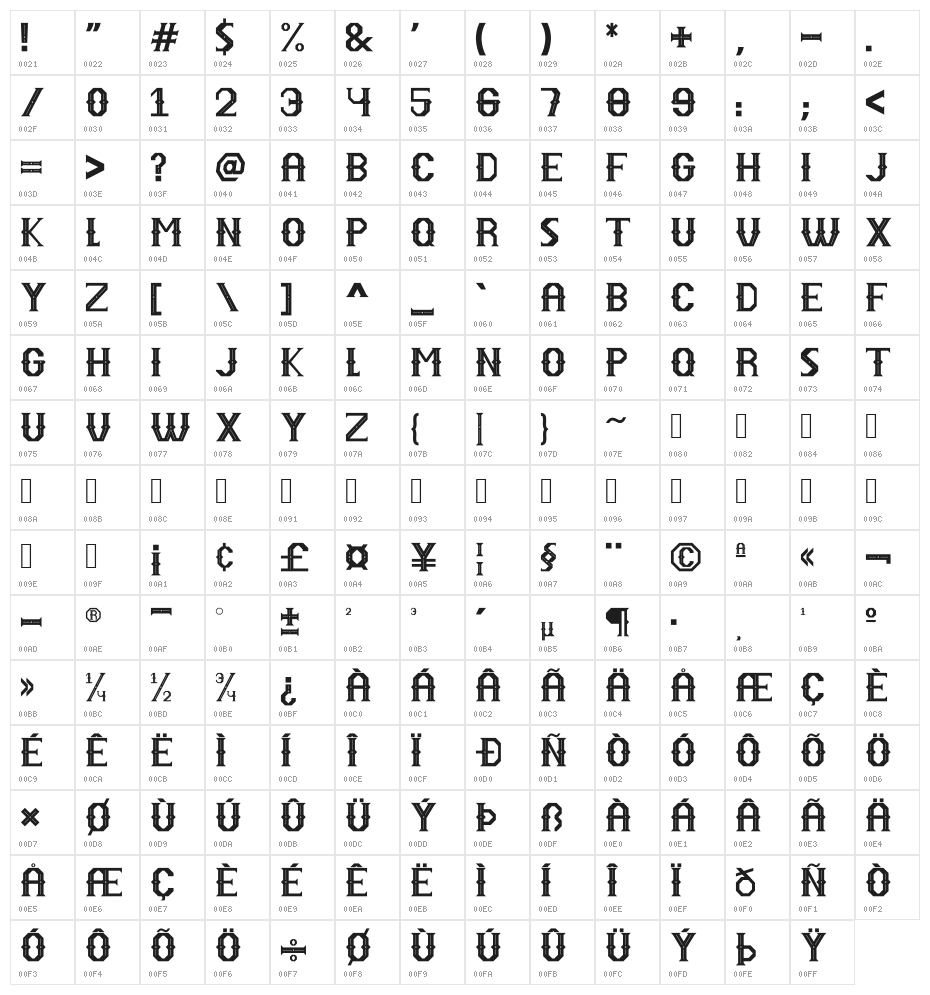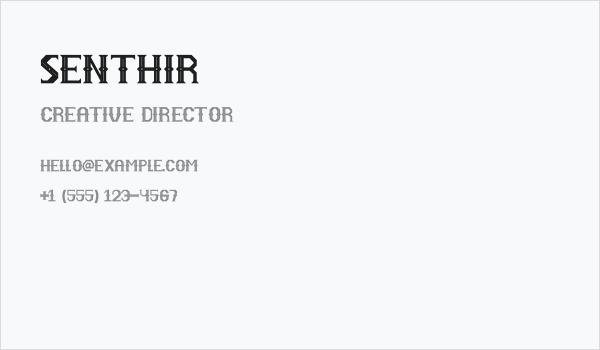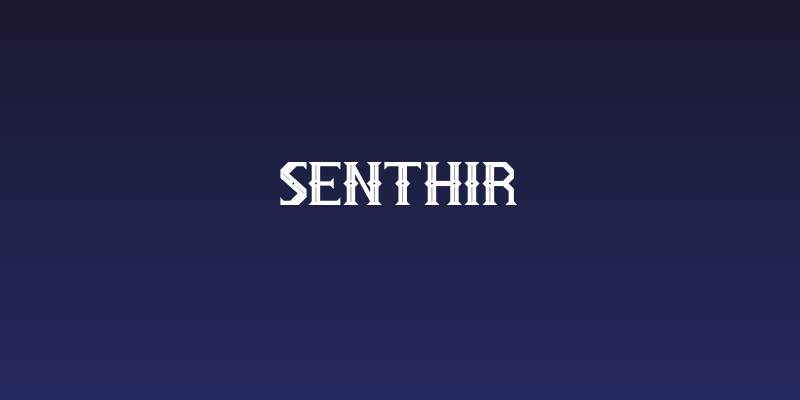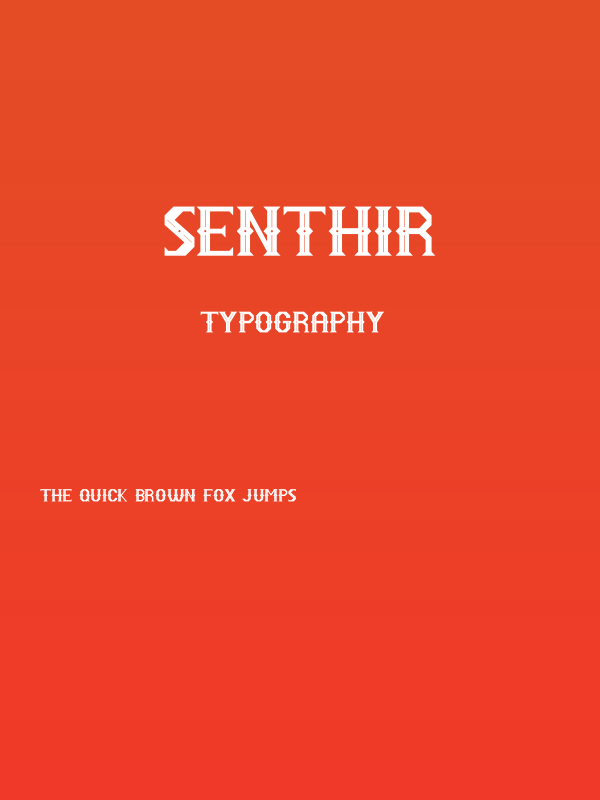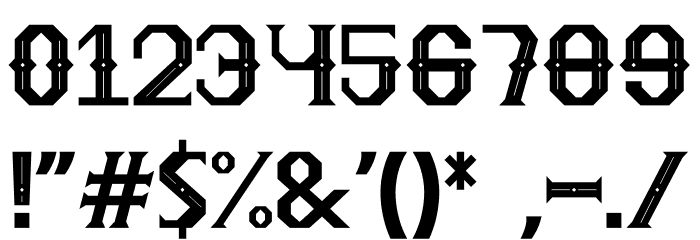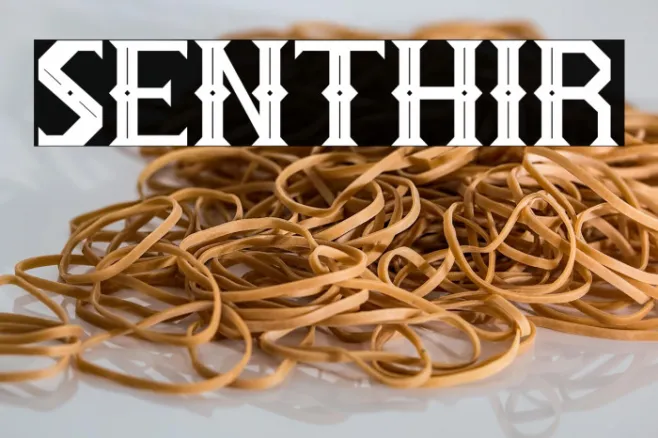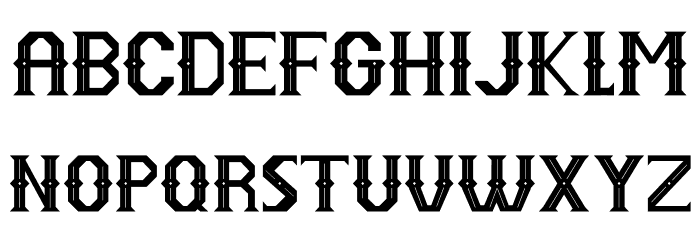
SENTHIR Font
SENTHIR Description
This font features a bold and striking design with a geometric and industrial aesthetic. The characters are constructed with thick, angular lines and sharp edges, giving them a mechanical and robust appearance. The uppercase and lowercase letters maintain a consistent style, with unique cut-out details that add to the font's distinctive look. The numbers and special characters are equally bold, ensuring uniformity across all glyphs. This font's strong visual impact makes it ideal for attention-grabbing designs.
| Proposed Projects | Ideal for branding, posters, and signage that require a strong, industrial look. |